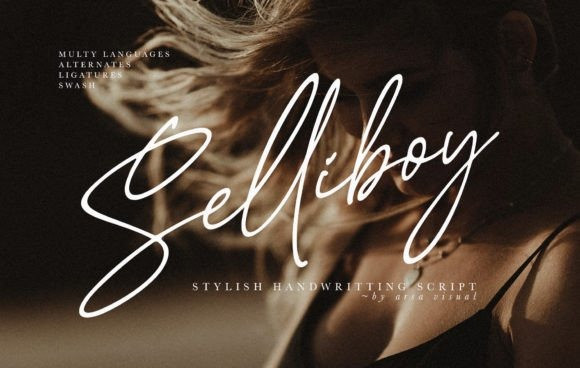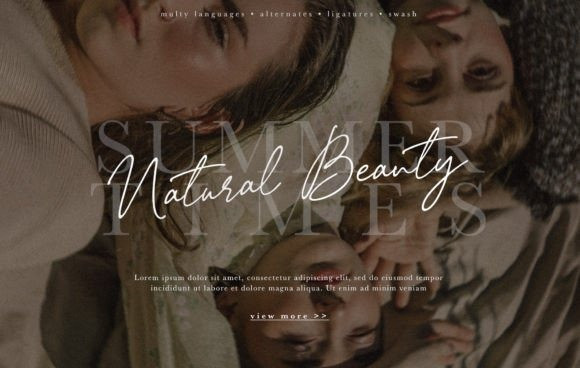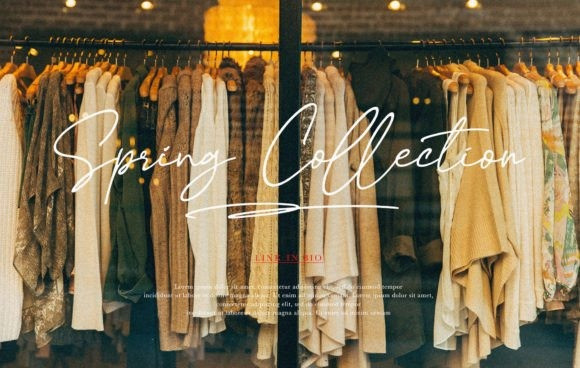
Selliboy Font
Proudly Present, Selliboy Stylish Handwritting Script Font! Selliboy It’s a modern script font with a signature style look. It’s very recommended for you who want to make some designs with natural handwriting with signature style. Selliboy will work for name card design, product packaging, branding project, social media post, wedding design, book cover title, poster or just used to express words above the background and more.